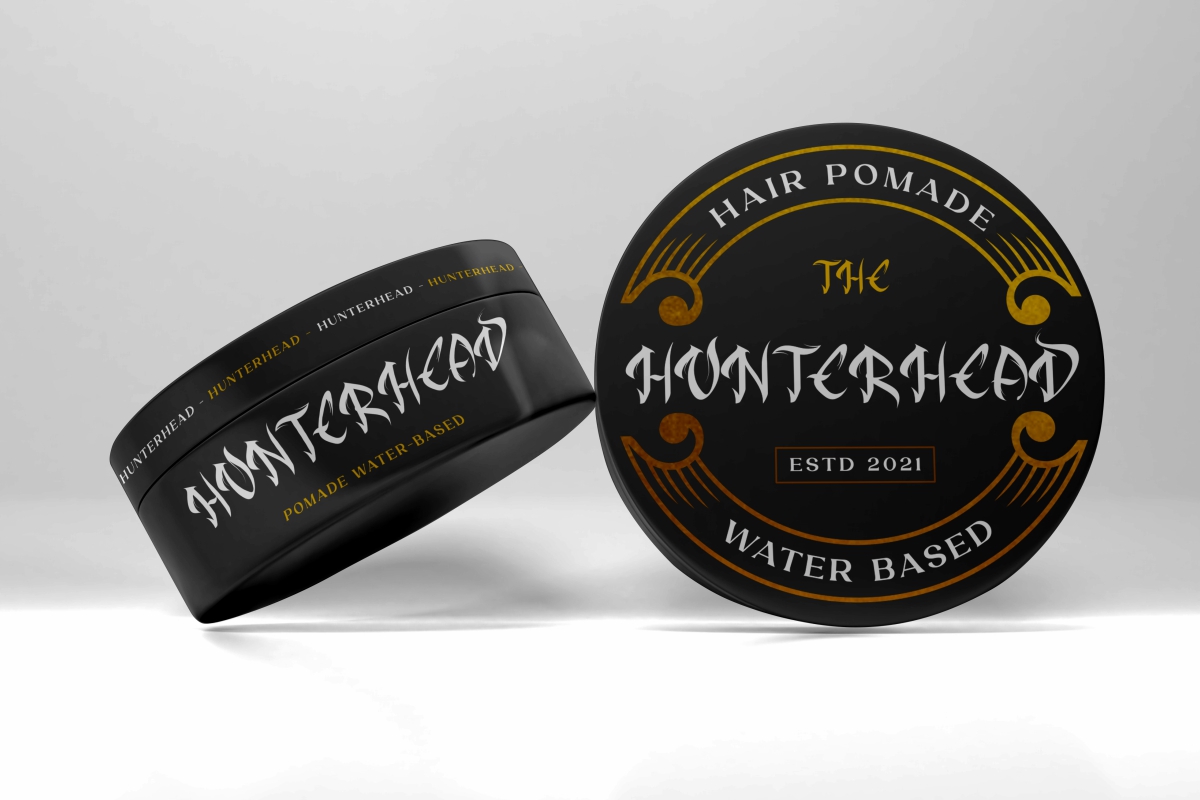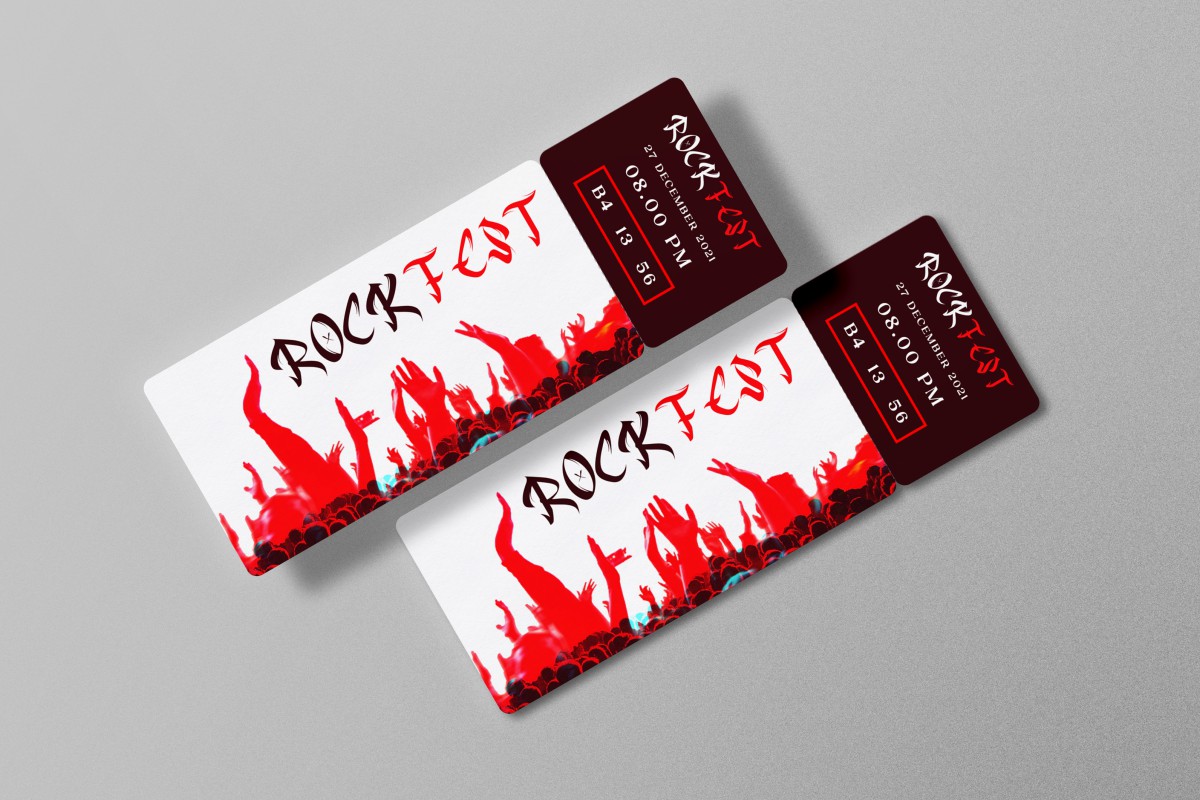
Bad Rocker Font
Bad Rocker Display Font
This is a blackletter display font with rock star style on its letters. This basic font has made with eye-catching fonts so we can make sure it looks great. it will be amazing for any project : artist, band, singer, performer, music, Product brandings, style, fashion, barbershop and many more
Bad Rocker Font includes full set of Uppercase Basic Characters, Numerals and Punctuation. Also it contains ligatures to make it flowless characters to perfectly make awesome look that add more aesthetic fonts to perfect your extraordinary project.